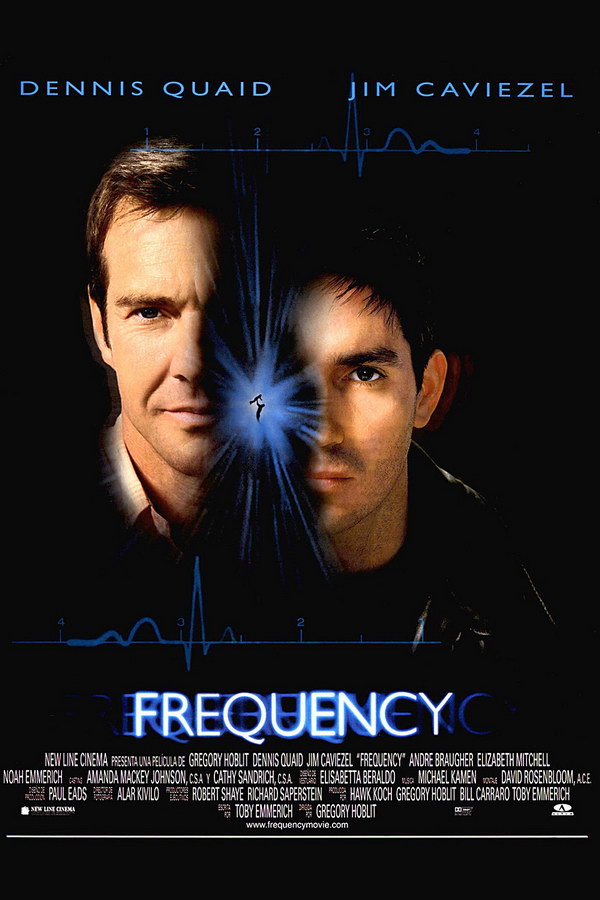
Frequency Font
Fonts in UseFrequency is a 2000 science fiction thriller film directed by Gregory Hoblit, starring Dennis Quaid and Jim Caviezel. The story revolves around a son who contacts his deceased father through a ham radio and tries to change the past to save his life.